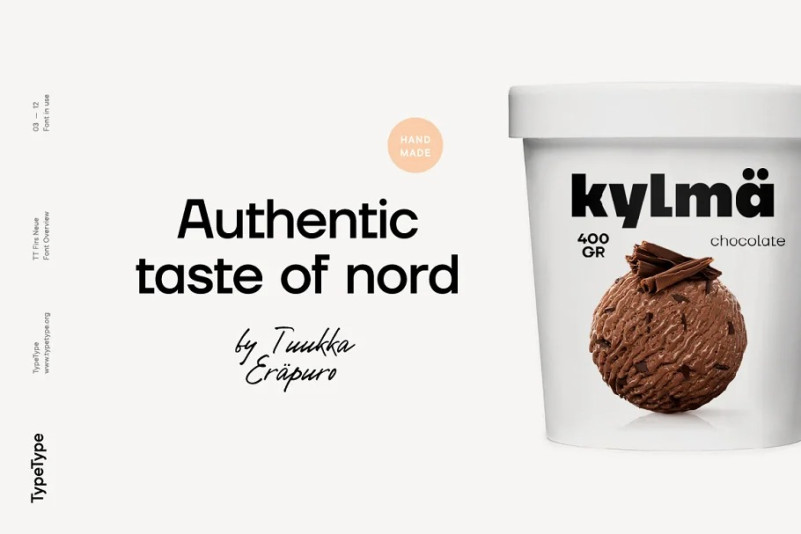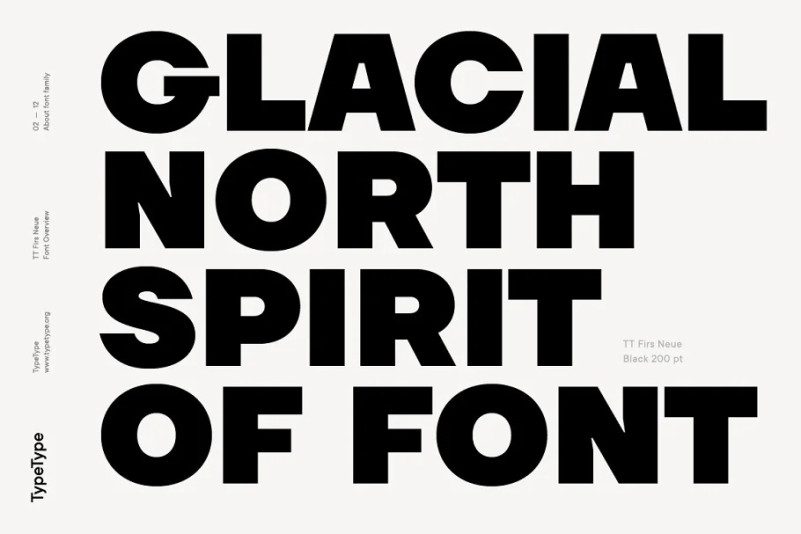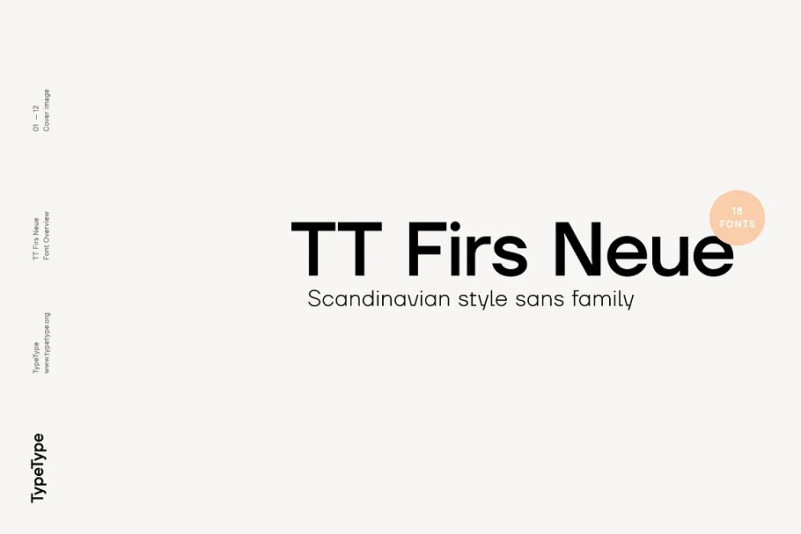
TT Firs Neue Font
TT Firs Neue Font is a contemporary reincarnation of the good old Scandinavian TT Firs sans-serif. In the process of updating the old typeface, we realized that the number of innovations and the amount of work done definitely deserve a full-fledged new release, and thus TT Firs Neue has come to life.
What has changed? Everything, starting from the proportions of letters and ending with a new formula for the interpolation of weights! So, we changed the proportions of uppercase and lowercase characters; corrected the difference in weight between the letters in fonts of different weights. We changed the basic thicknesses of the strokes so that none of their 18 fonts would stand out with their weight and would be completed following a strict system. We created completely new Italics. And, of course, we made changes directly to the style of the typeface and its letters—the letters have become fresher and cleaner from the geometric point of view.
The most interesting change in the font is the significant extension of its scope. While the old type family was primarily focused on display matters—that is, very large short inscriptions, the new version implies active use of the typeface in the text and on the web. With all this, the font’s character has not been weakened, but has even gained some more strength. This can be perfectly seen in the radical extenders of the letters gltf, or in the super-display visual compensators for horizontal strokes in the bold weights of the typeface. Even though the standard display of TT Firs Neue has become brighter and more audacious, you can always calm it down a little by simply turning on stylistic alternates.
And that is not all! And how about small capitals, and other OpenType features, you ask? In TT Firs Neue, you will find small caps (for Latin and Cyrillic alphabets) and a set of stylistic alternates. In addition to the “standard ligatures”, in TT Firs Neue you can find a large number of original ligatures (30 items) for capital letters, which cover popular two- and three-letter high-frequency combinations from Scandinavian languages. In addition, to support the linguistic features of Scandinavian countries, we prepared a set of capital letters with pinned-down diacritics (including their small capital versions). To access this function, you need to use the calt feature (contextual alternates), or enable the second stylistic set (ss02) in InDesign. And that’s not all, there are a lot of useful features in TT Firs Neue, such as: ordn, case, c2sc, smcp, ccmp, frac, sinf, sups, numr, dnom, tnum, onum, lnum, pnum, dlig, liga , salt (ss01), ss02, locl, calt.